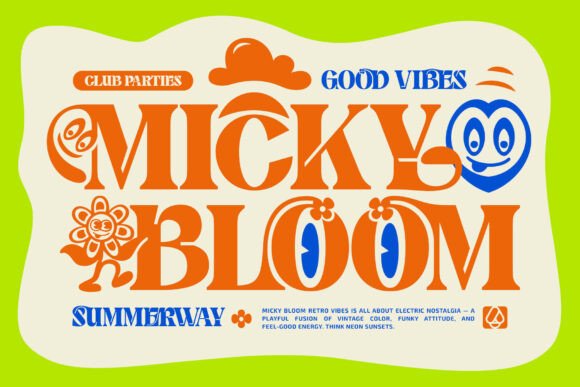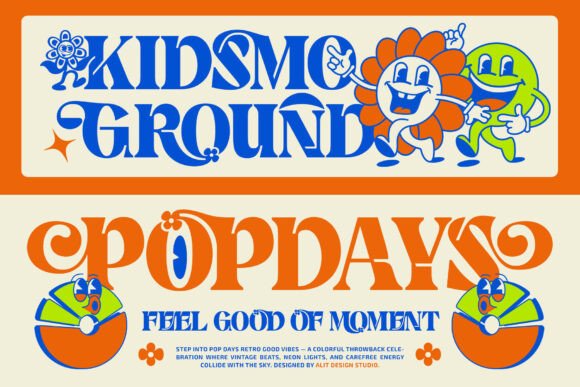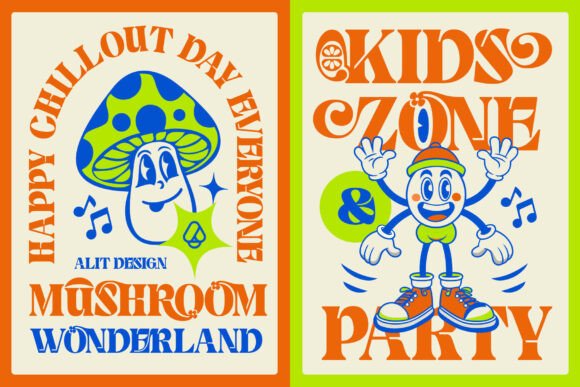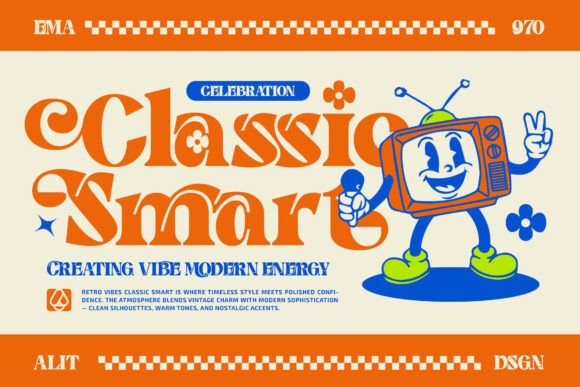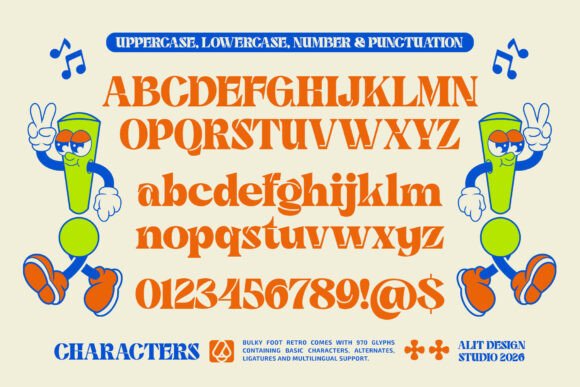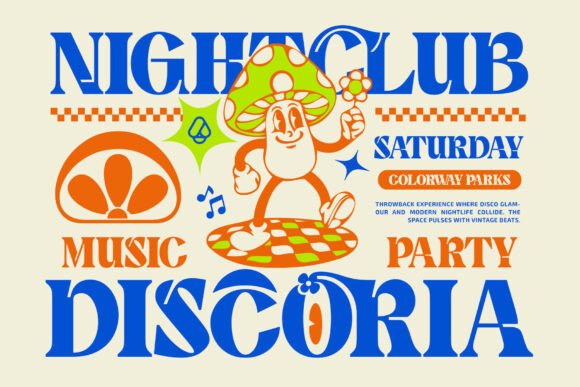
Bulky Foot Font: Where Retro Playfulness Meets Modern Edge
Step into a world of vibrant nostalgia with Bulky Foot, the latest masterpiece from Alit Design Studio. Designed for creators who aren’t afraid to make a statement, Bulky Foot is a quirky, expressive typeface that perfectly captures the “New Retro” aesthetic. It’s bold, it’s bouncy, and it’s packed with personality.
The Aesthetic: Groovy, Bold, and Unapologetic
Bulky Foot draws inspiration from the psychedelic posters of the 70s and the playful mascot art of the early 2000s. Its thick, “bulky” weighted letters are softened by unexpected curves and sharp, stylized serifs, creating a unique visual rhythm. Whether you are designing for a high-energy nightclub or a whimsical children’s brand, this font adapts to bring a sense of joy and movement to your layout.
Limitless Creativity with 970 Glyphs
We believe a font should be a complete toolkit. Bulky Foot is loaded with an expansive library of 970 glyphs, giving you unparalleled control over your typography. With a vast range of characters, symbols, and ligatures at your disposal, you can let your creativity run wild and bring your most ambitious projects to life.
What You Can Do with Bulky Foot:
- Branding and Logos: Create eye-catching logos and brand identities that stand out in any industry.
- Advertising and Marketing: Use Bulky Foot to craft compelling ad copy and marketing materials that grab attention.
- Packaging and Product Design: Add a touch of personality to your product packaging and make it memorable.
- Digital Media: Enhance your social media posts, website headers, and digital content with a dash of retro flair.
- Art and Illustration: Incorporate Bulky Foot into your illustrations and artwork for a unique typographic element.
Why Choose Bulky Foot?
In a world where design trends are constantly evolving, Bulky Foot offers a refreshing blend of nostalgia and modernity. Its distinctive style ensures that your work will stand out, whether you’re aiming for a playful vibe or a bold statement. Here are a few reasons why Bulky Foot should be your go-to font:
- Unique Style: Bulky Foot’s retro-inspired design with a modern twist makes it one-of-a-kind.
- Versatility: Suitable for a wide range of projects, from digital media to print materials.
- Extensive Glyph Library: 970 glyphs at your fingertips for limitless creative possibilities.
- Ease of Use: Designed to be user-friendly, making it accessible for both beginners and professionals.
Bulky Foot is more than just a font – it’s a design experience. By combining the playful spirit of retro typography with modern design sensibilities, Alit Design Studio has created a typeface that is both nostalgic and forward-thinking. Whether you’re a seasoned designer or a DIY enthusiast, Bulky Foot offers the tools you need to make a statement. So why wait? Dive into the world of Bulky Foot today and discover a font that will take your designs to the next level.